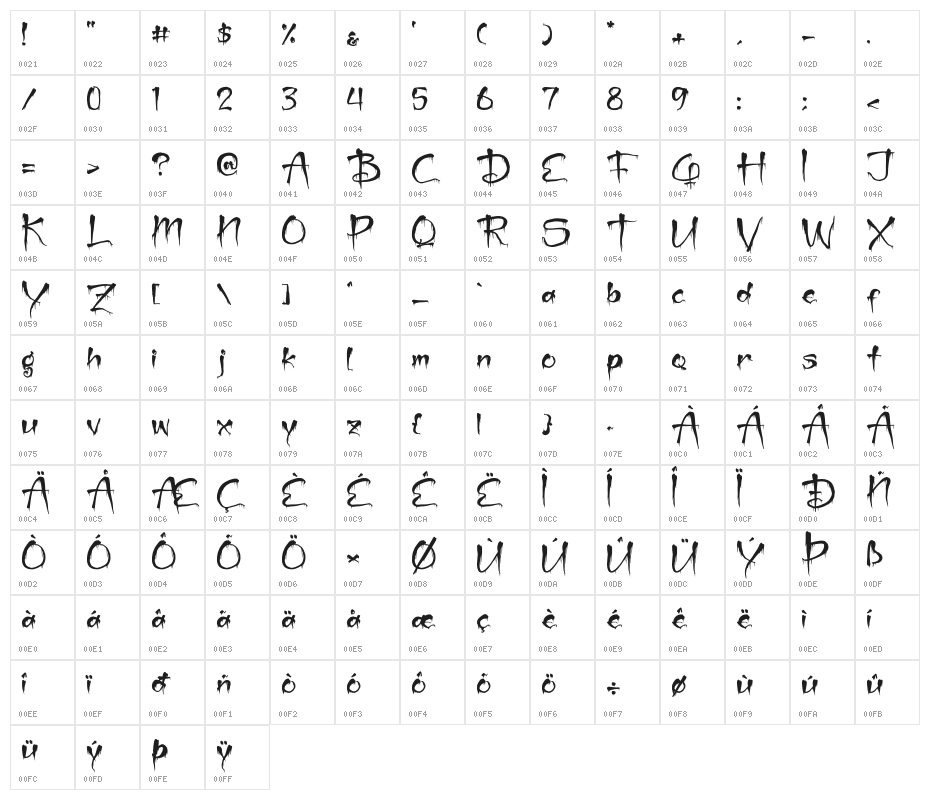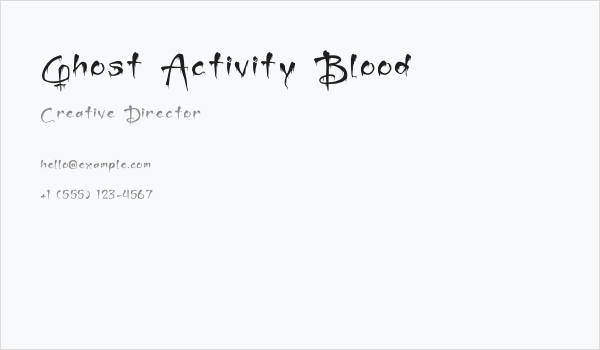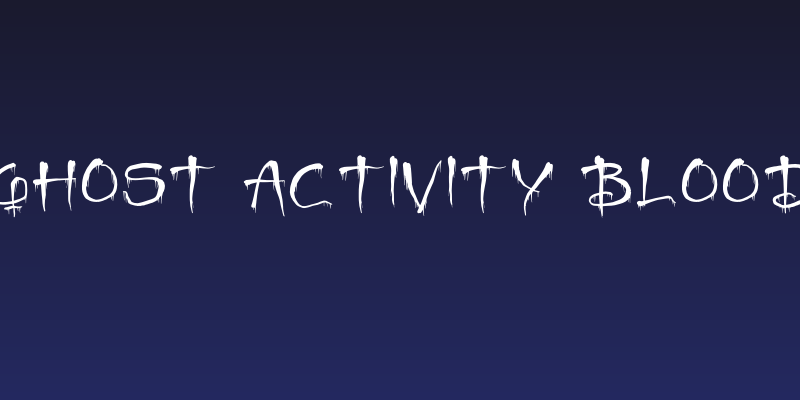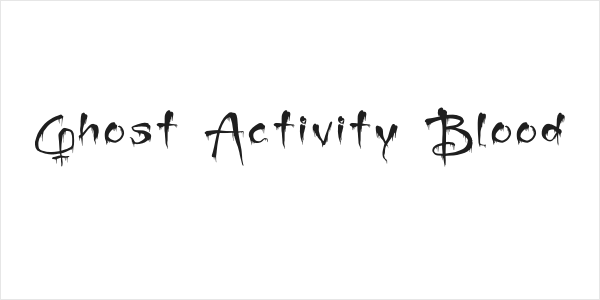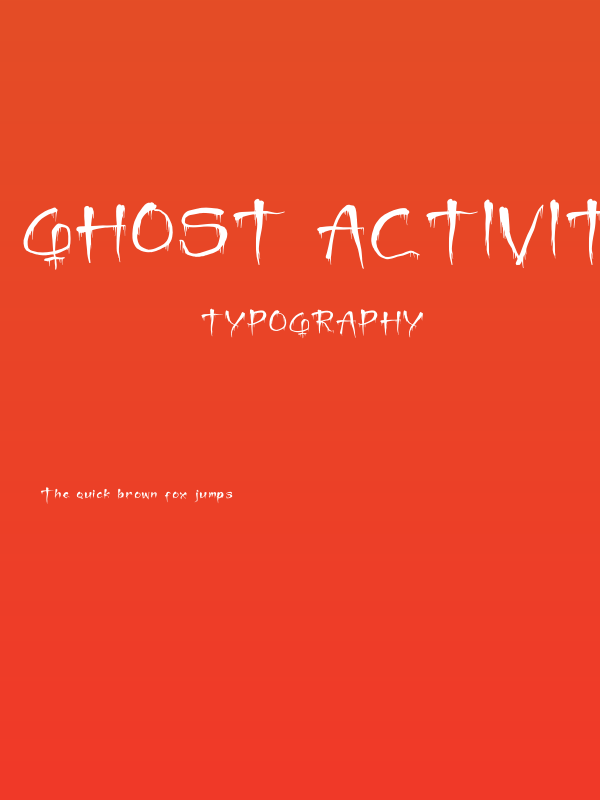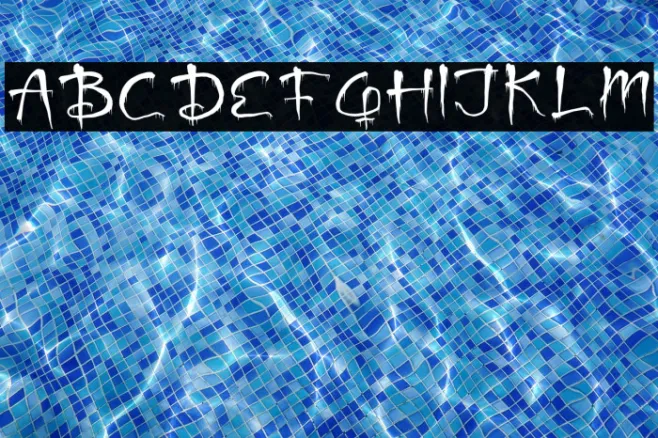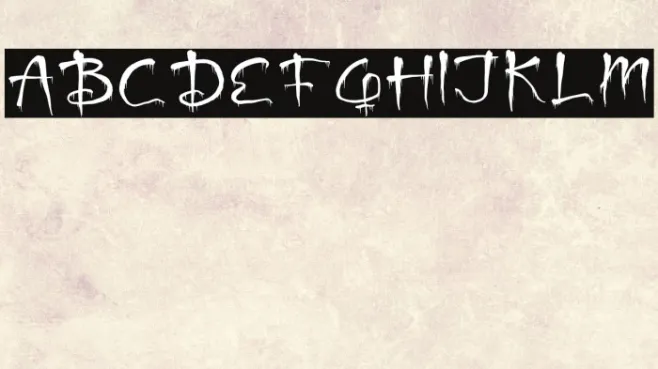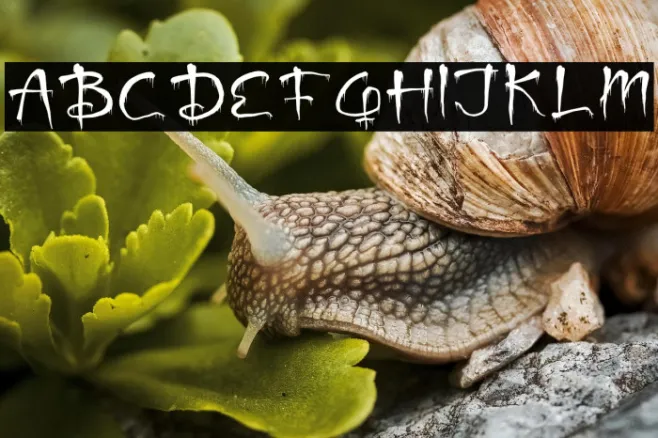
Ghost Activity Blood Font
Ghost Activity Blood Description
This font features a haunting and eerie design, with characters that appear to be dripping or melting, reminiscent of blood or ink. The strokes are uneven and jagged, giving it a distressed and unsettling appearance. The uppercase and lowercase letters maintain a consistent style, with sharp edges and irregular forms that enhance its ghostly theme. Numbers and special characters follow the same aesthetic, making the font suitable for creating a cohesive and spooky atmosphere. Its unique style makes it ideal for Halloween-themed projects or horror movie posters.
| Proposed Projects | Ideal for Halloween-themed designs, horror movie posters, haunted house flyers, and spooky event invitations. |